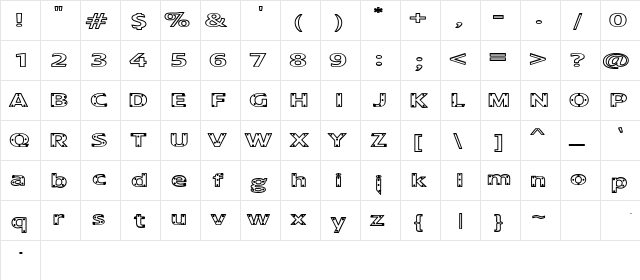
ScrewedFontDark Regular
Design Context for ScrewedFontDark Typeface
ScrewedFontDark takes a measured approach to typography — its balanced proportions and neutral character make it a reliable workhorse for both digital and print work.